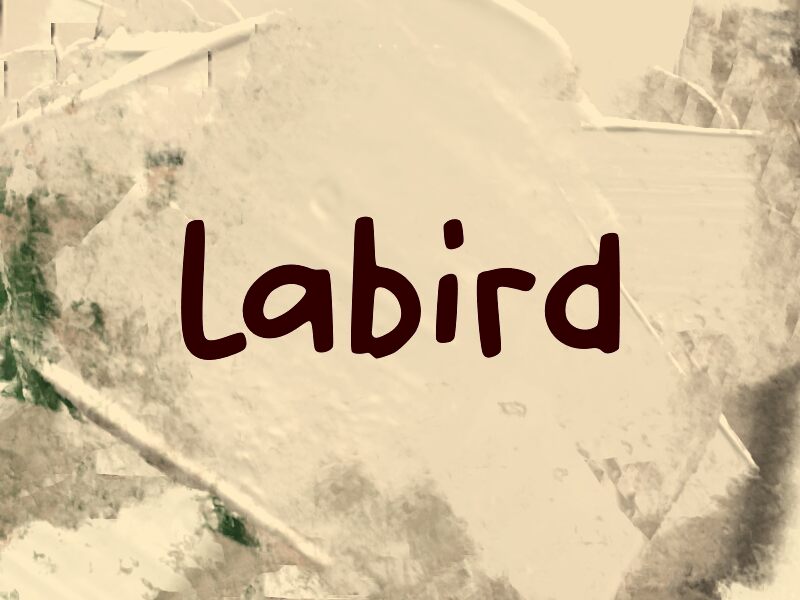
L Labird font by wep is a free font inspired by basic lines and connection points. This unique typeface enjoys a childlike spirit characterized by its simplicity and contemporary style in its colored form.
A great choice for children’s products, educational games, storybooks, and cartoons. Enjoy integrating L Labird in drawings, art projects, outdoor activities posters, and DIY book covers. Fonts that look like they’re drawn by hand can be paired with handwritten fonts and used in coffee shop menus, healthy food restaurant branding, and posters.
Labird is a visually stunning free font that combines elegance with a modern flair. Its unique design makes it perfect for a variety of applications, from branding to invitations to digital graphics. With its charming curves and versatile style, Labird stands out in any project.
This free font not only enhances the aesthetic appeal of your work but also ensures readability and clarity. Whether you're designing for print or web, Labird is an ideal choice for those looking to make a bold statement.